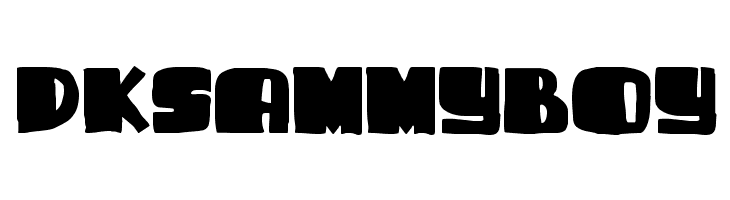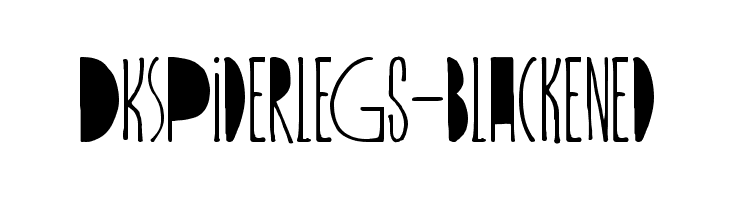
A playful, hand-drawn font with bold, irregular strokes and a whimsical style.
A playful, hand-drawn font with bold outlines and a whimsical style.
A bold, hand-painted style font with dynamic, brush-like strokes.
A playful, hand-drawn style font with bold, irregular letterforms.
A bold, distressed font with a rugged, vintage style.
A bold, dynamic handwritten font with expressive strokes.
A bold, distressed font with a hand-painted, artistic style.